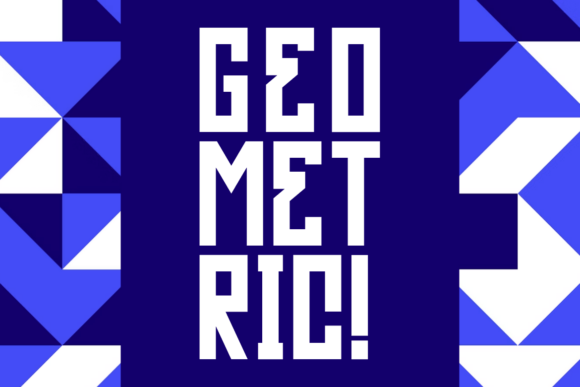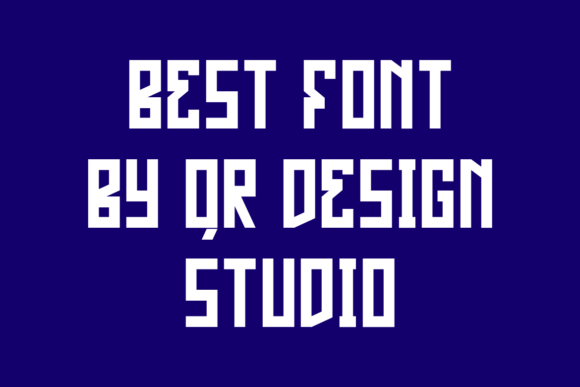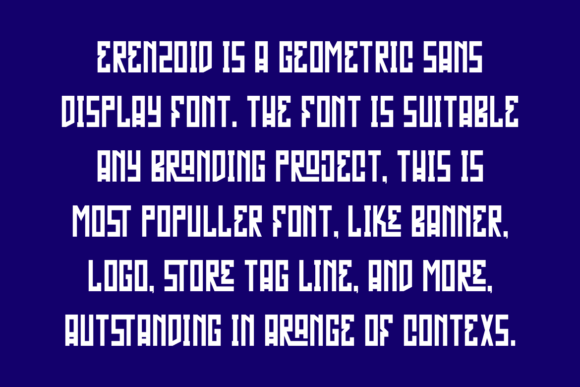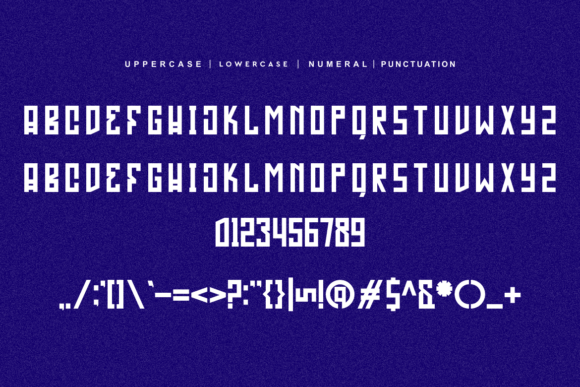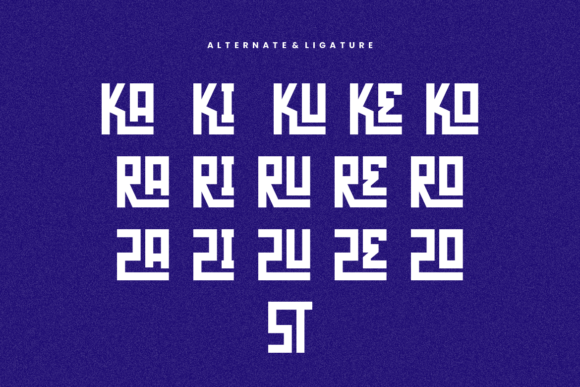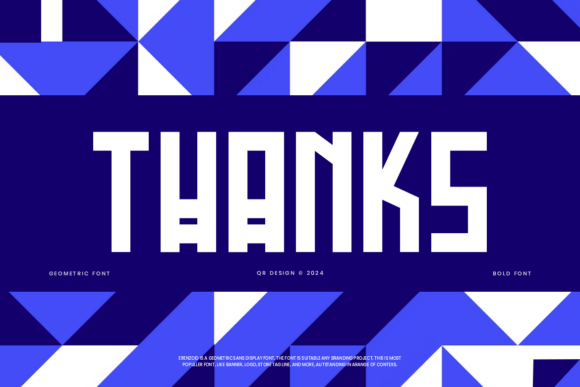
Erenzoid Font: The Bold and Authentic Display Font for Your Branding Needs
In the world of typography, fonts play a crucial role in conveying the tone and personality of a brand. With thousands of fonts available, finding the perfect one for your branding project can be overwhelming. However, if you’re looking for a bold and authentic display font that can elevate your brand’s visual identity, look no further than Erenzoid Font. In this article, we’ll explore the features and benefits of Erenzoid Font and why it’s an excellent choice for designers and crafters.
What is Erenzoid Font?
Erenzoid Font is a bold and authentic display font designed to make a statement. Its unique and striking appearance makes it perfect for branding projects that require a strong visual impact. The font is versatile and can be used for various applications, including logos, sports, and more.
Key Features of Erenzoid Font
- Bold and Authentic: Erenzoid Font is designed to be bold and authentic, making it perfect for brands that want to make a statement.
- Display Font: The font is optimized for display purposes, making it ideal for headlines, titles, and other attention-grabbing elements.
- Versatile: Erenzoid Font can be used for various branding projects, including logos, sports, and more.
- Wide Range of Contexts: The font is outstanding in a wide range of contexts, making it a great choice for designers and crafters who need a font that can adapt to different situations.
Benefits of Using Erenzoid Font
So, why choose Erenzoid Font for your branding project? Here are some benefits of using this exceptional font:
- Stand Out from the Crowd: Erenzoid Font is designed to grab attention and make a statement. By using this font, you can ensure that your brand stands out from the competition.
- Professional and Modern Look: The font has a professional and modern look that can elevate your brand’s visual identity and make it more appealing to your target audience.
- Easy to Read: Despite its bold appearance, Erenzoid Font is easy to read, making it perfect for headlines, titles, and other display elements.
- Customizable: The font is highly customizable, allowing you to adjust its size, color, and style to fit your branding needs.
Who Can Benefit from Erenzoid Font?
Erenzoid Font is an excellent choice for designers and crafters who work on branding projects. Here are some professionals who can benefit from using this font:
- Graphic Designers: Graphic designers can use Erenzoid Font to create stunning visual identities for their clients.
- Logotype Designers: Logotype designers can use the font to create bold and memorable logos.
- Branding Experts: Branding experts can use Erenzoid Font to develop a consistent visual identity for their clients.
- Crafters: Crafters can use the font to create unique and eye-catching designs for their products.
In conclusion, Erenzoid Font is a bold and authentic display font that’s perfect for branding projects. Its unique and striking appearance makes it stand out from other fonts, and its versatility makes it suitable for various applications. Whether you’re a designer, crafter, or branding expert, Erenzoid Font is an excellent choice for anyone looking to elevate their brand’s visual identity.